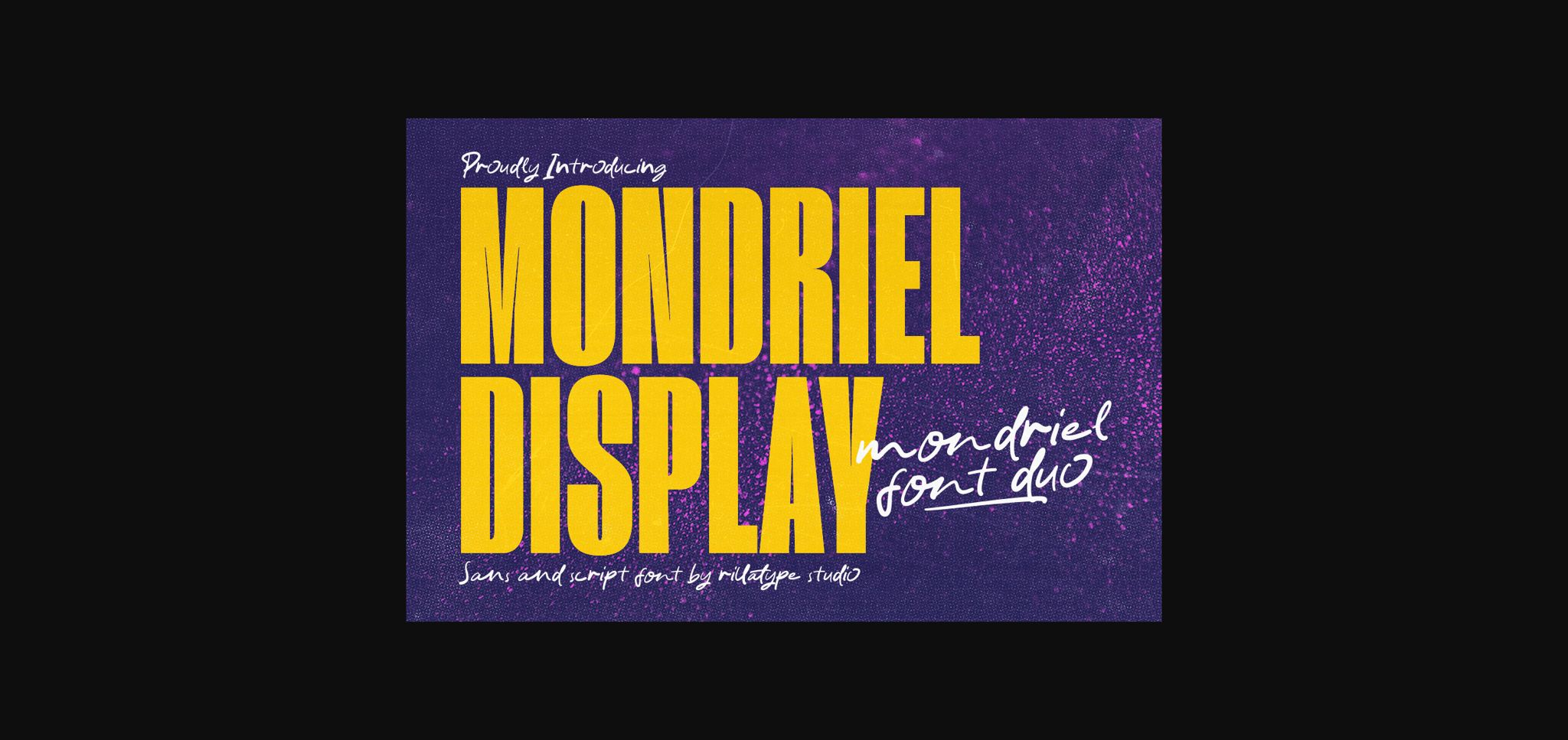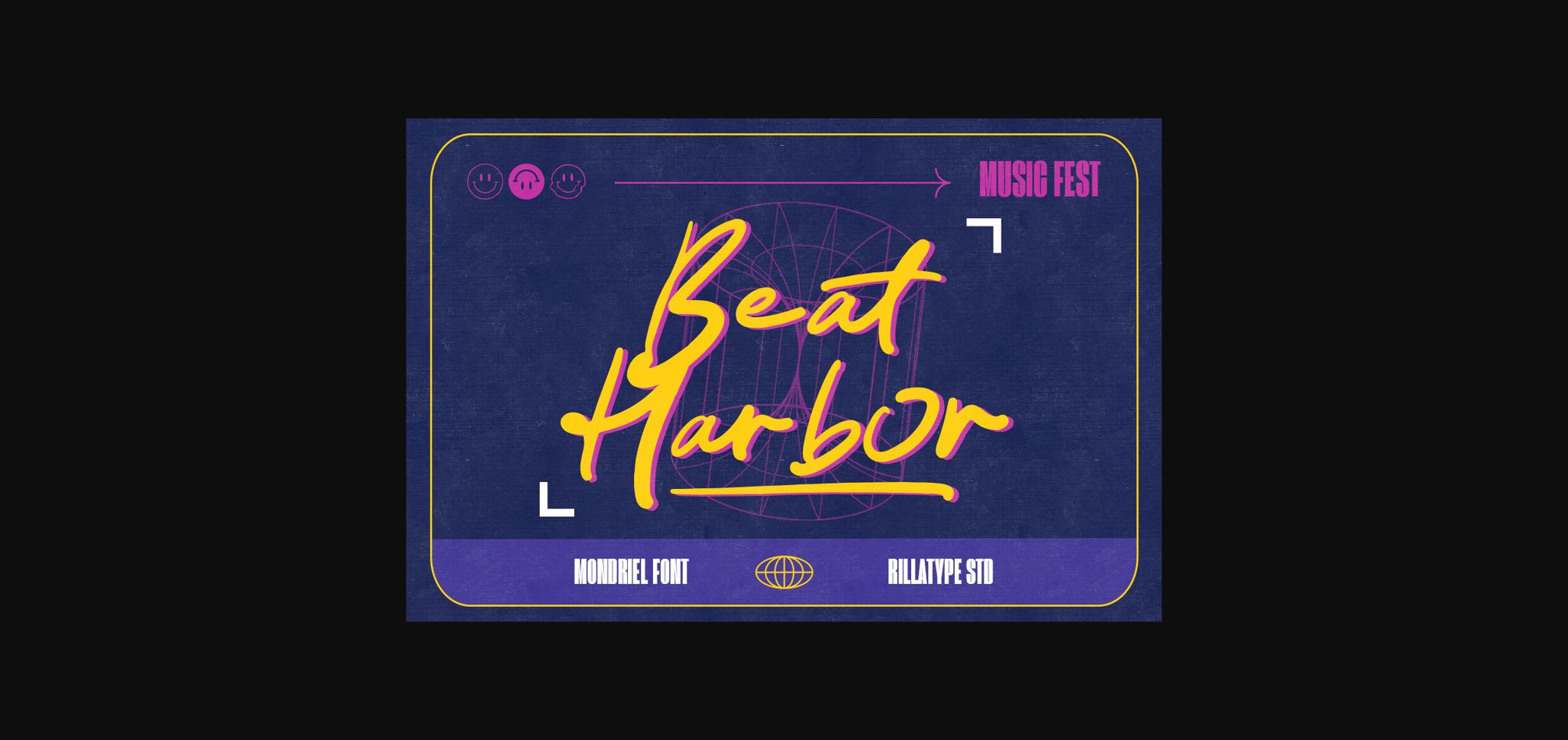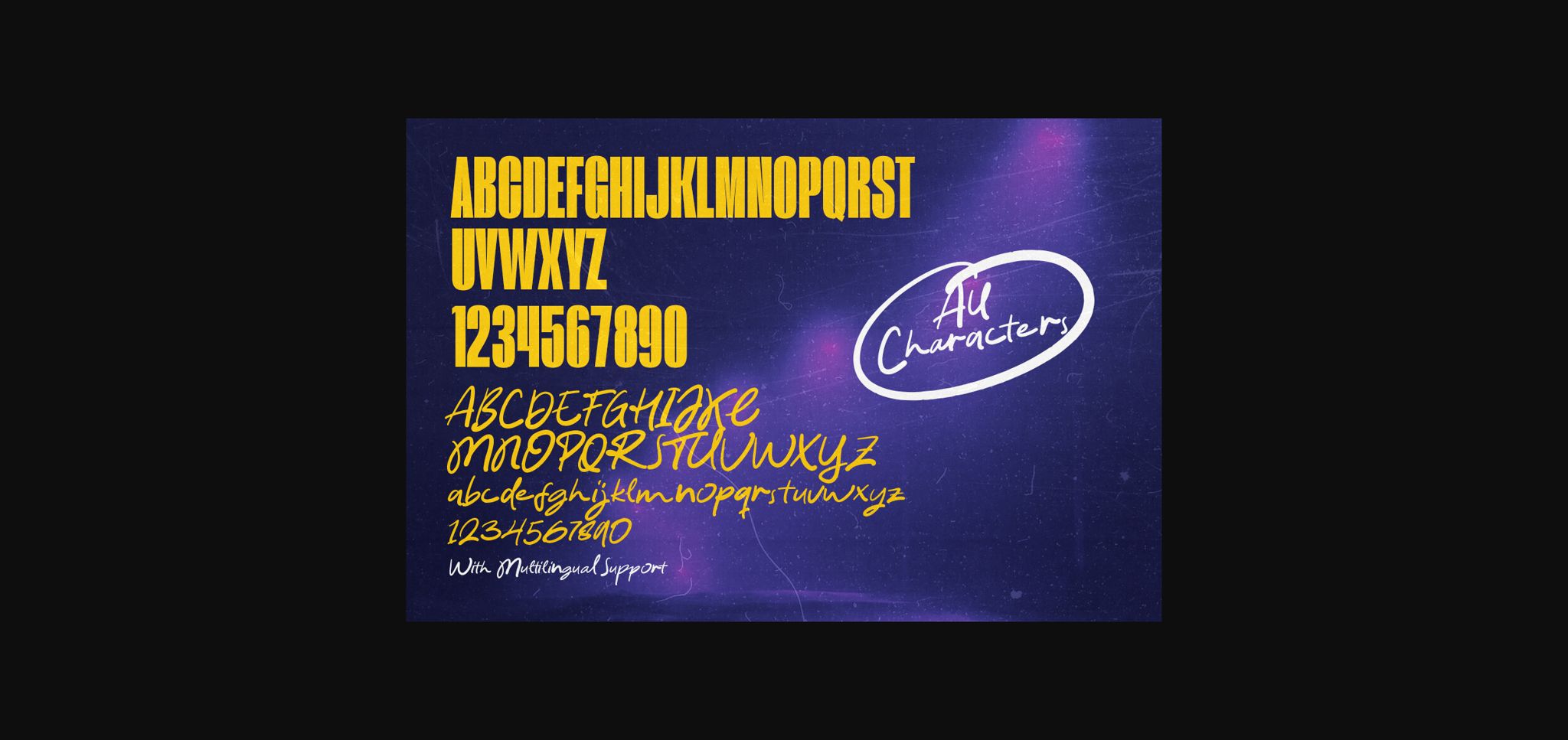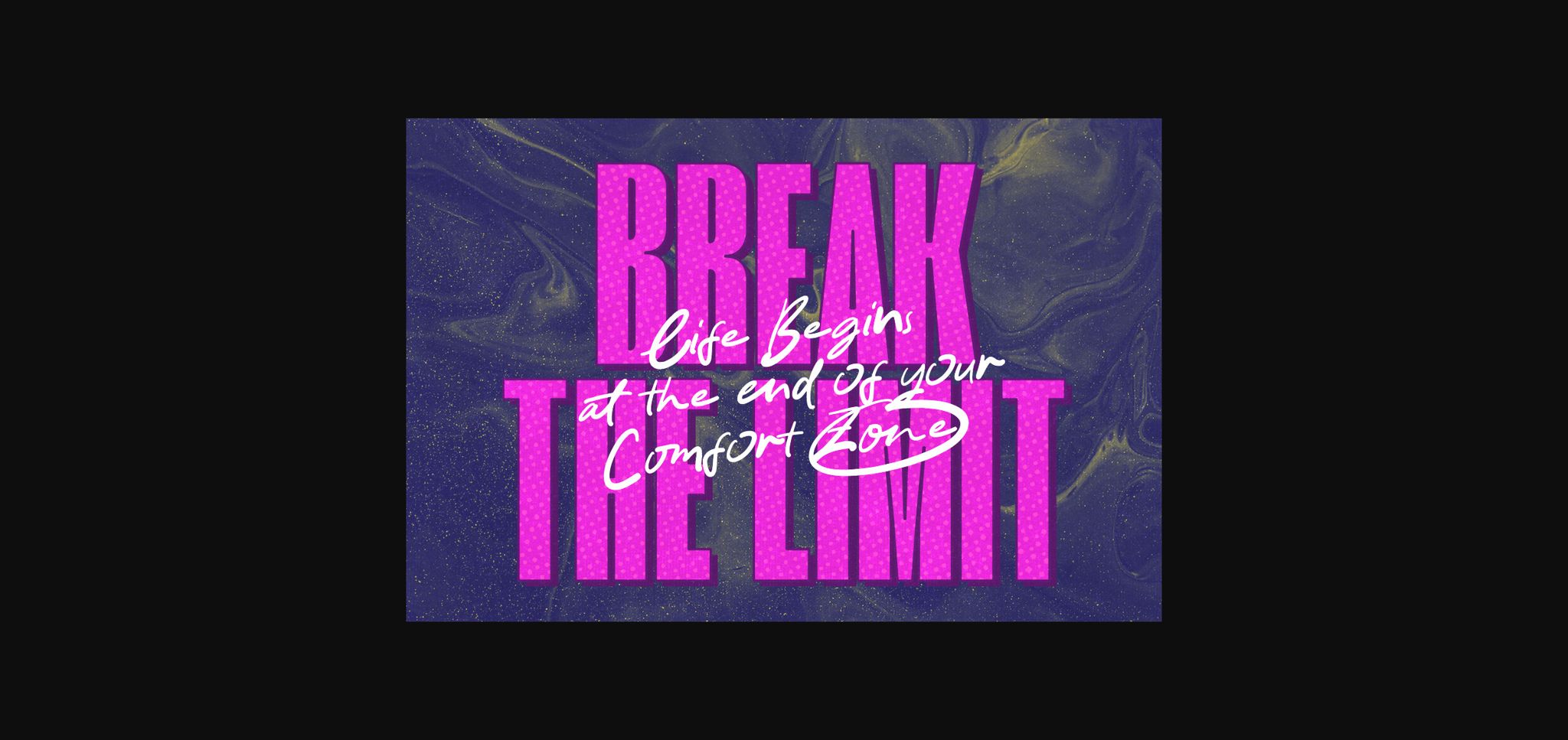
About Mondriel Font
Introducing “Mondriel,” a dynamic font duo that seamlessly blends the sophistication of a condensed sans-serif with the personal touch of a handwritten font. This duo is a harmonious combination of modernity and individuality, offering a versatile typographic solution for various design projects. The condensed sans-serif provides a sleek and contemporary feel, while the handwritten font adds a human touch, making your designs stand out with a perfect balance. Elevate your creative endeavors with the unique synergy of Mondriel, where the precision of sans-serif meets the warmth of handwritten charm.